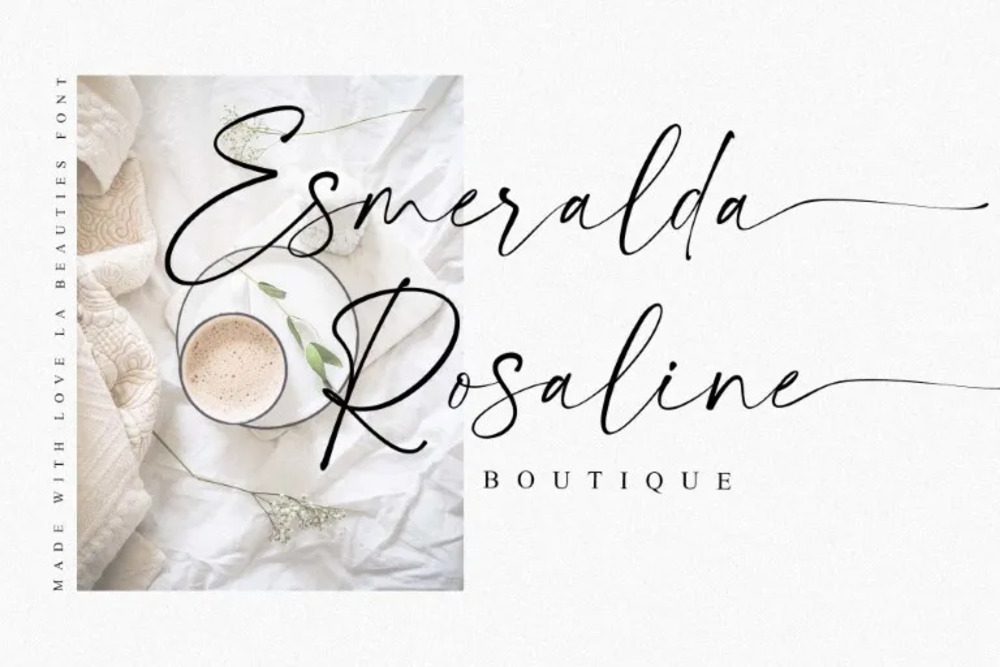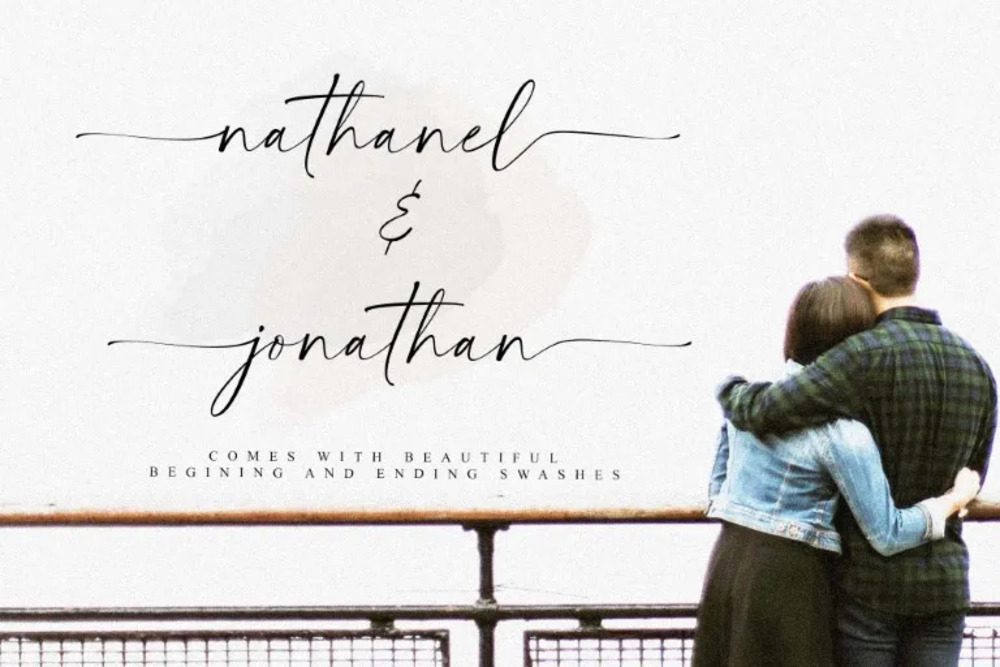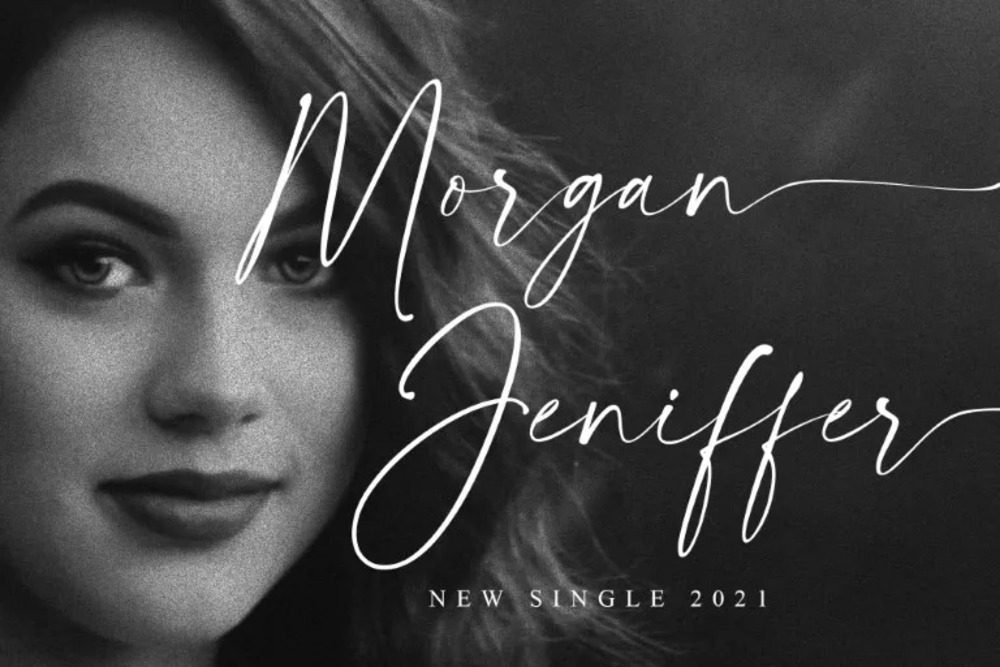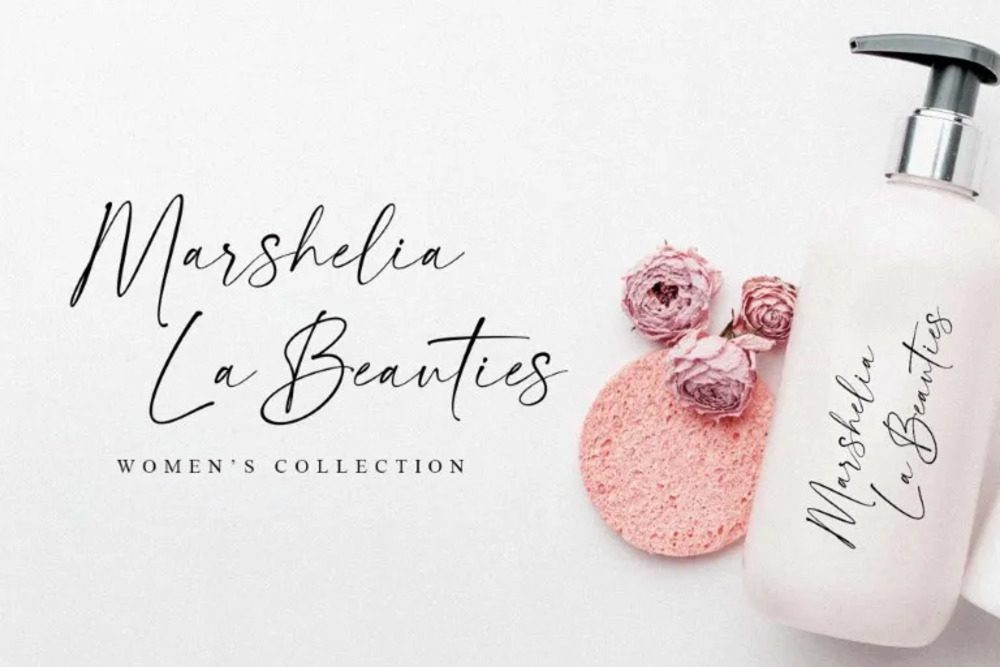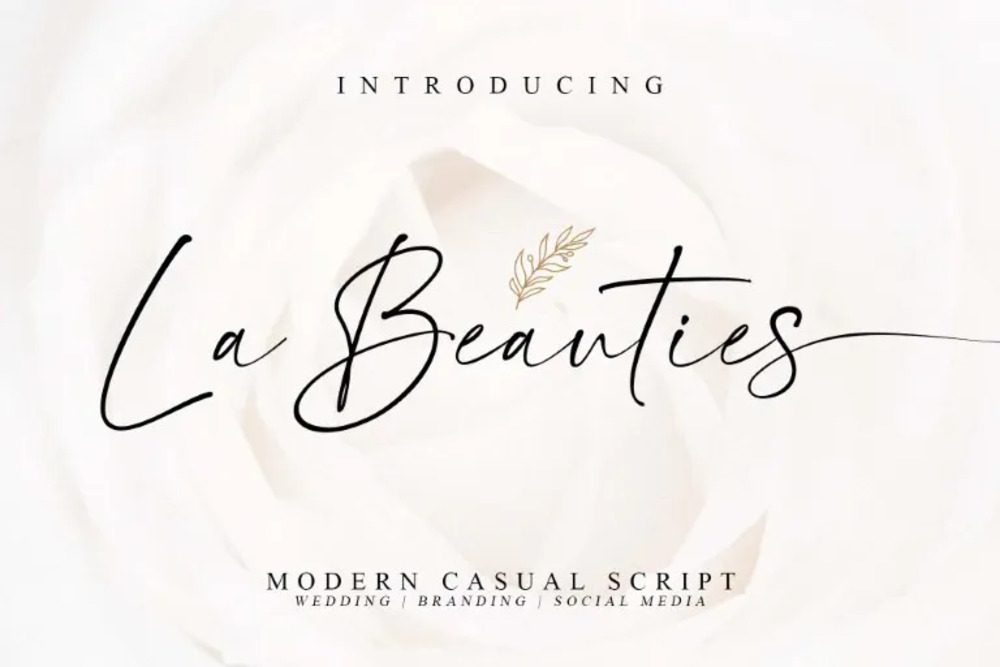
La Beauties Font
La Beauties font is a graceful, modern script that blends delicate curves with a refined aesthetic. Its flowing strokes and elegant design make it ideal for wedding invitations, branding, and upscale projects. Versatile and timeless, it radiates sophistication, adding a touch of luxury and charm to any creative endeavor.